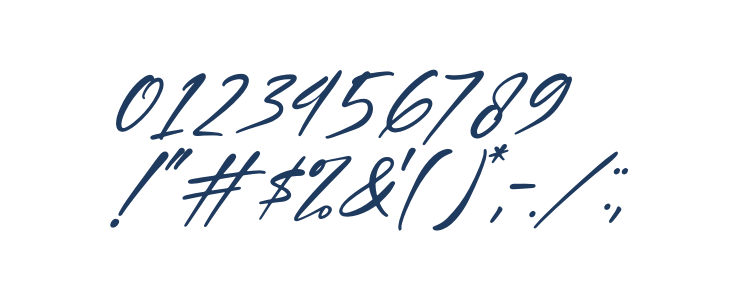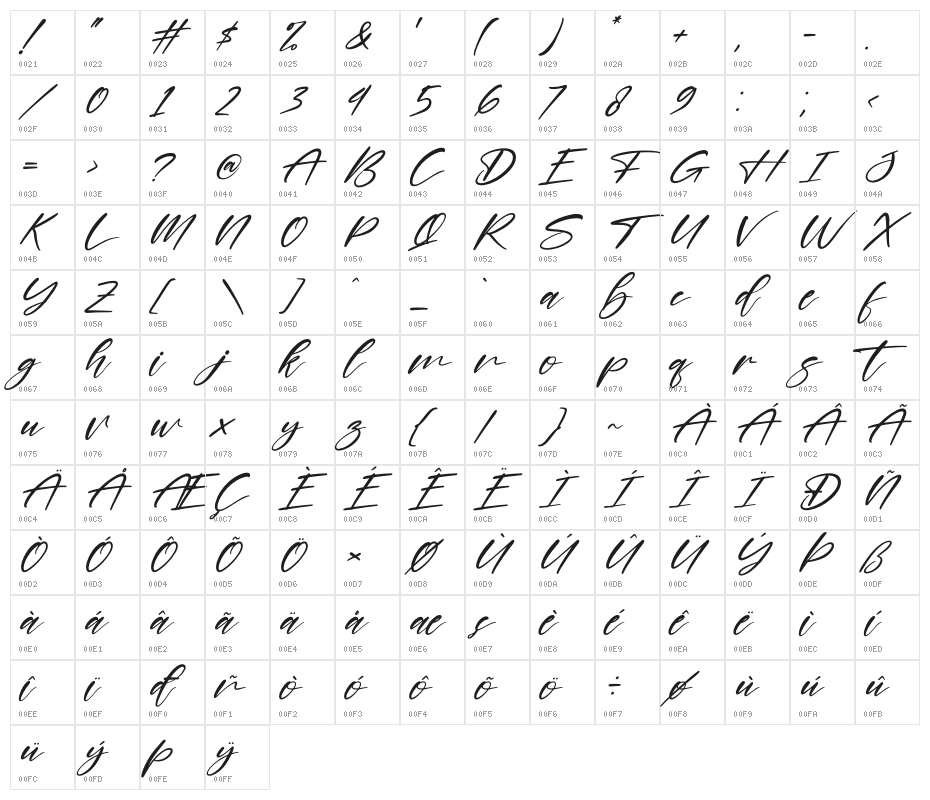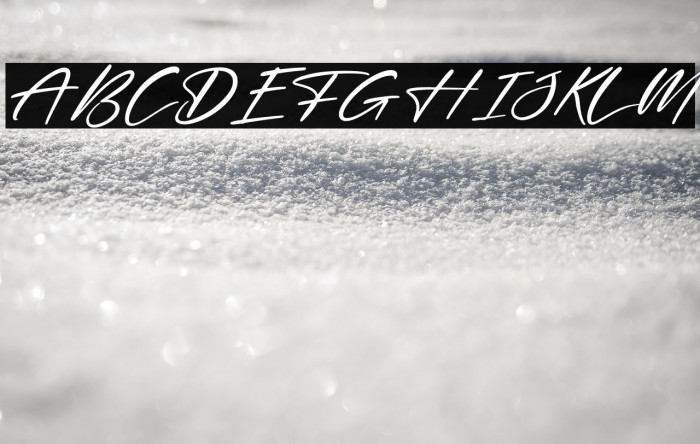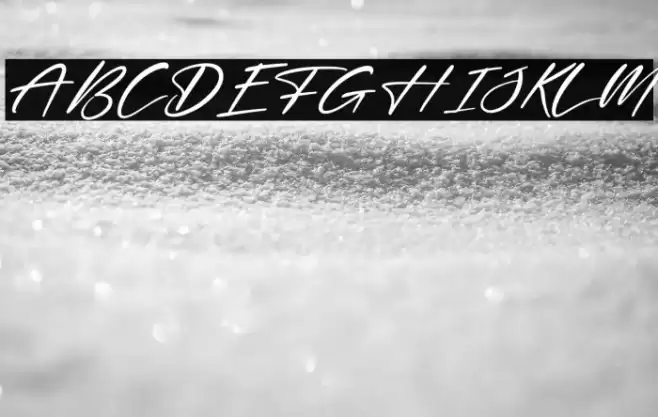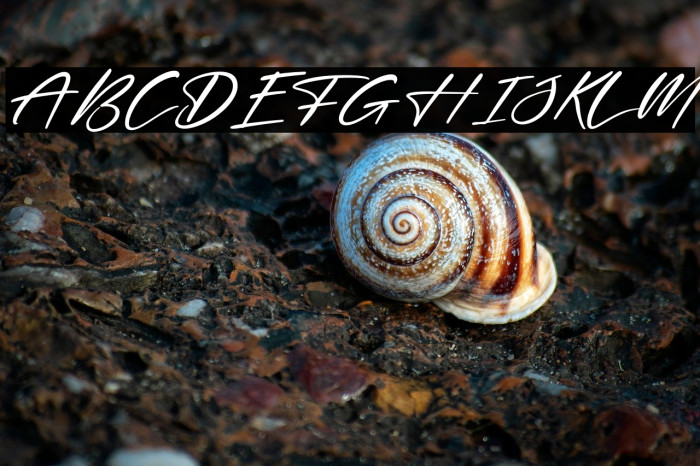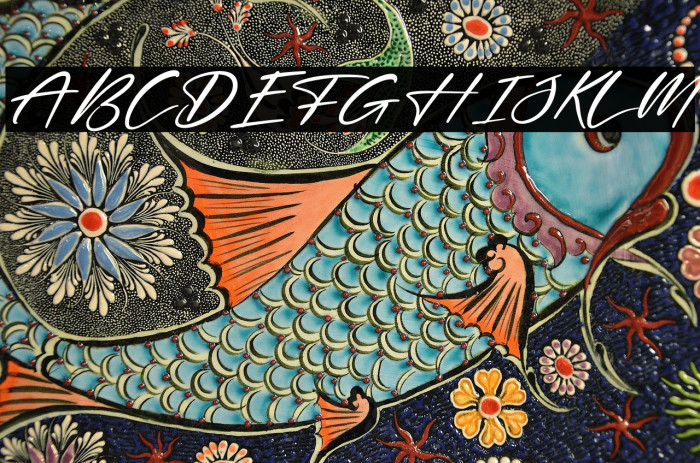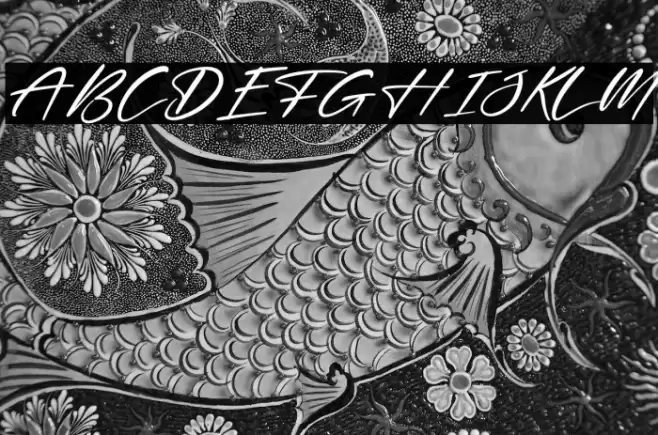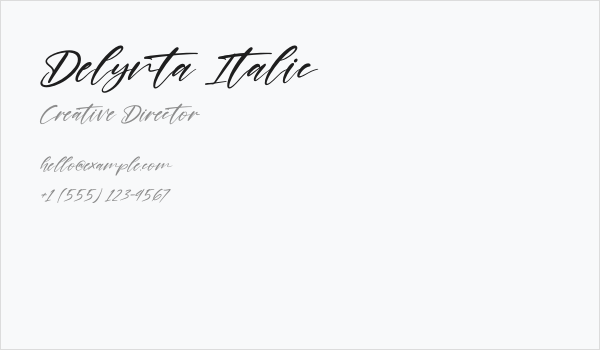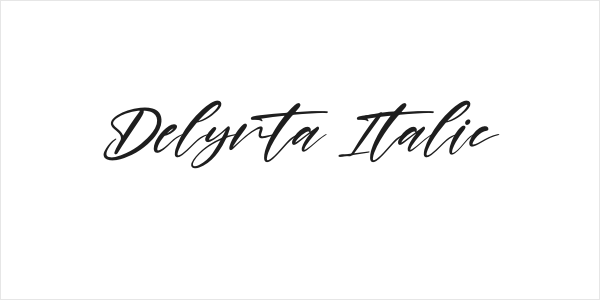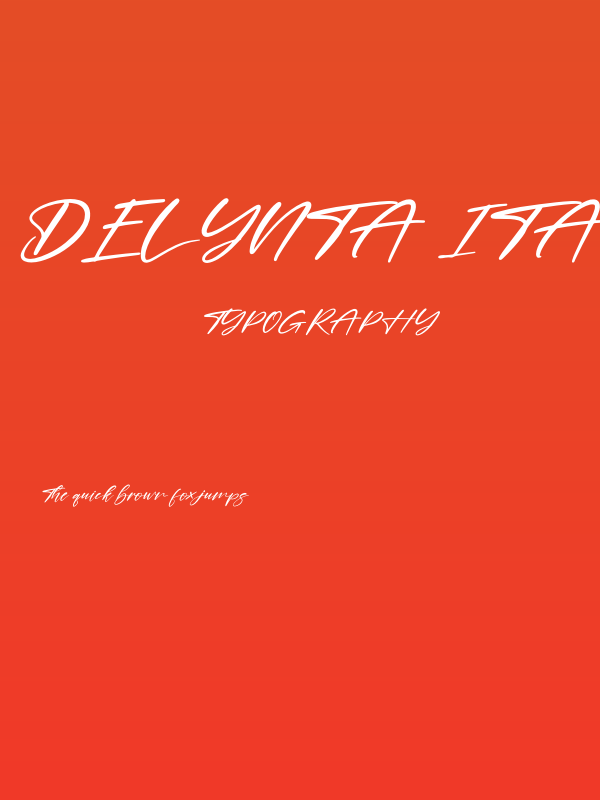
Delynta Italic Font
Delynta Italic Description
This font exhibits a dynamic and fluid script style, characterized by its elegant and flowing cursive letters. The strokes are smooth and connected, creating a sense of movement and grace. The uppercase letters are bold and slightly slanted, while the lowercase letters maintain a consistent rhythm with their rounded forms. The numerals and special characters are designed to complement the overall script style, ensuring a cohesive appearance. This font's artistic flair makes it suitable for creative and expressive projects.
| Proposed Projects | Ideal for wedding invitations, greeting cards, branding, and artistic projects requiring a personal touch. |